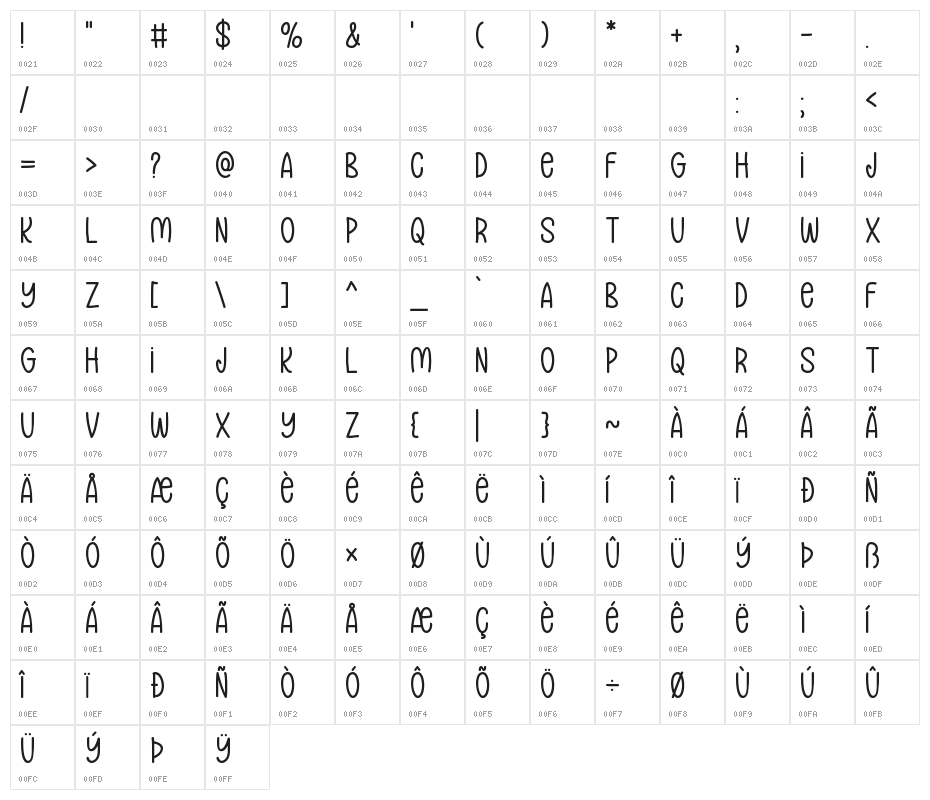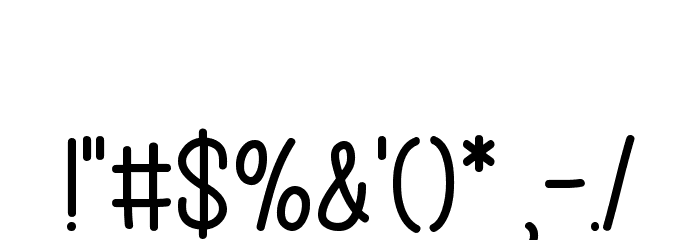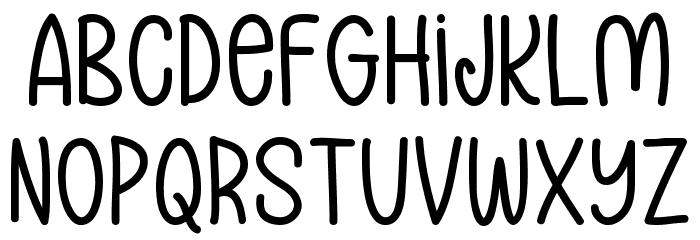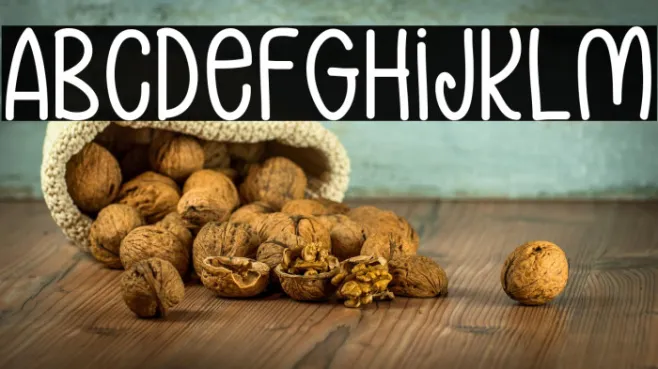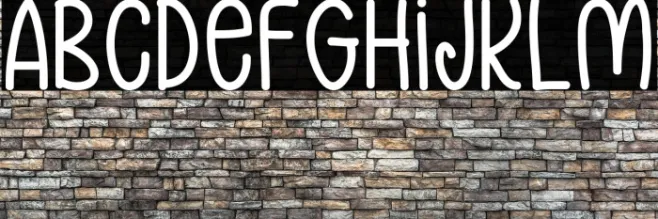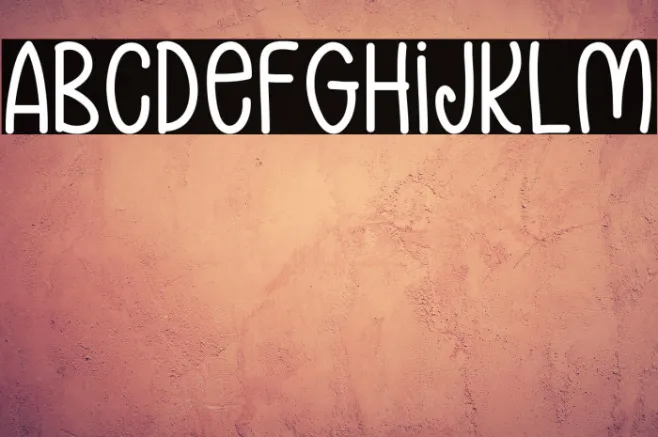
Sleeping Baby Panda Font
Sleeping Baby Panda Description
A playful, rounded handwritten font with a casual and friendly appearance.
| Use Case | Headlines, Informal text, Children's materials |
| Proposed Projects | Children's books, casual branding, playful posters. |